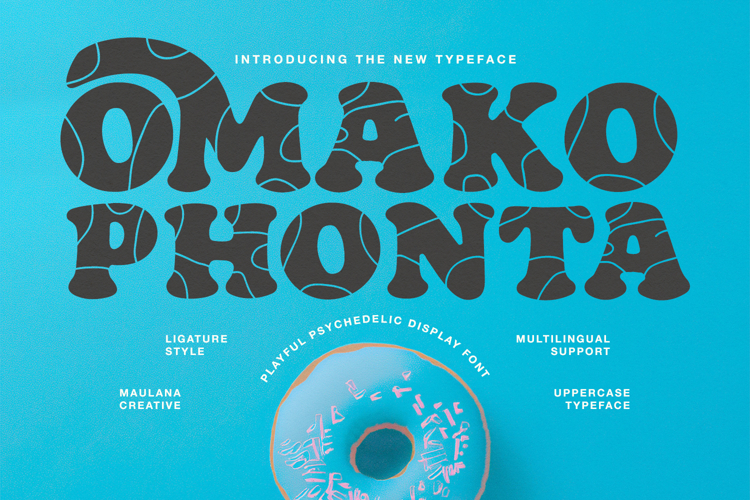
Omako Phonta is a new uppercase typeface that features a vibrant and playful psychedelic style. This display font is characterized by its unique bubble-like shapes and wavy internal patterns that evoke a retro yet modern aesthetic. It includes specialized ligature styles and comprehensive multilingual support, making it versatile for various creative projects. Perfect for bold headlines, posters, and imaginative branding, Omako Phonta also provides a full set of numbers and punctuation to ensure complete design functionality.
- Ligatures for a natural handwriting flow
Omako Phonta